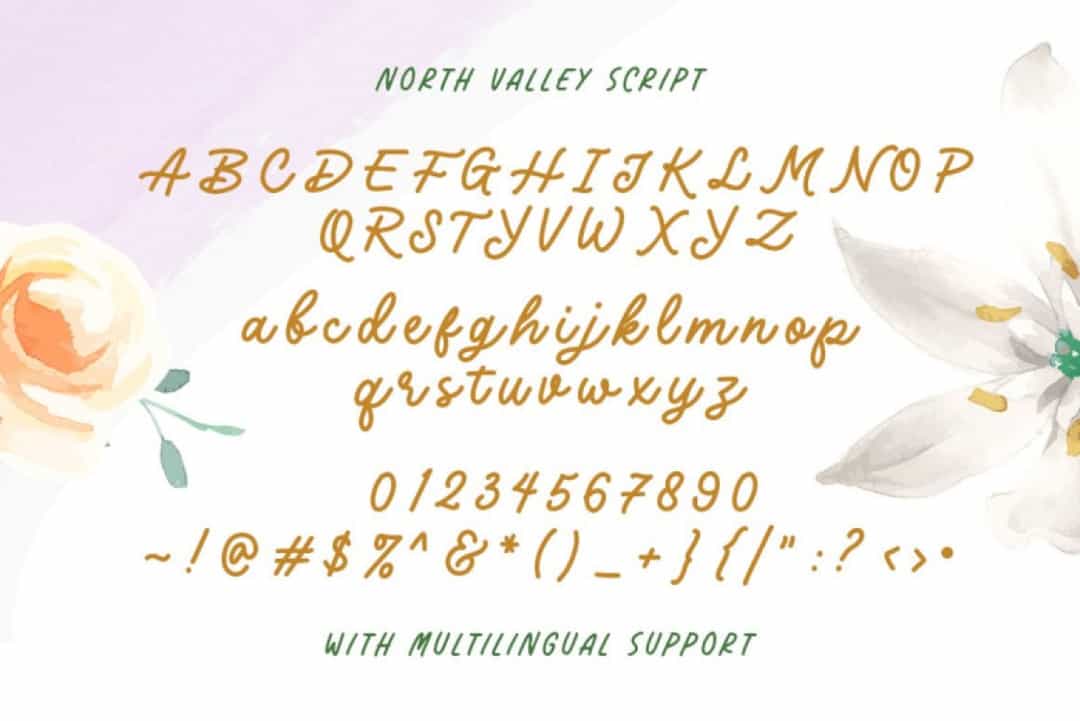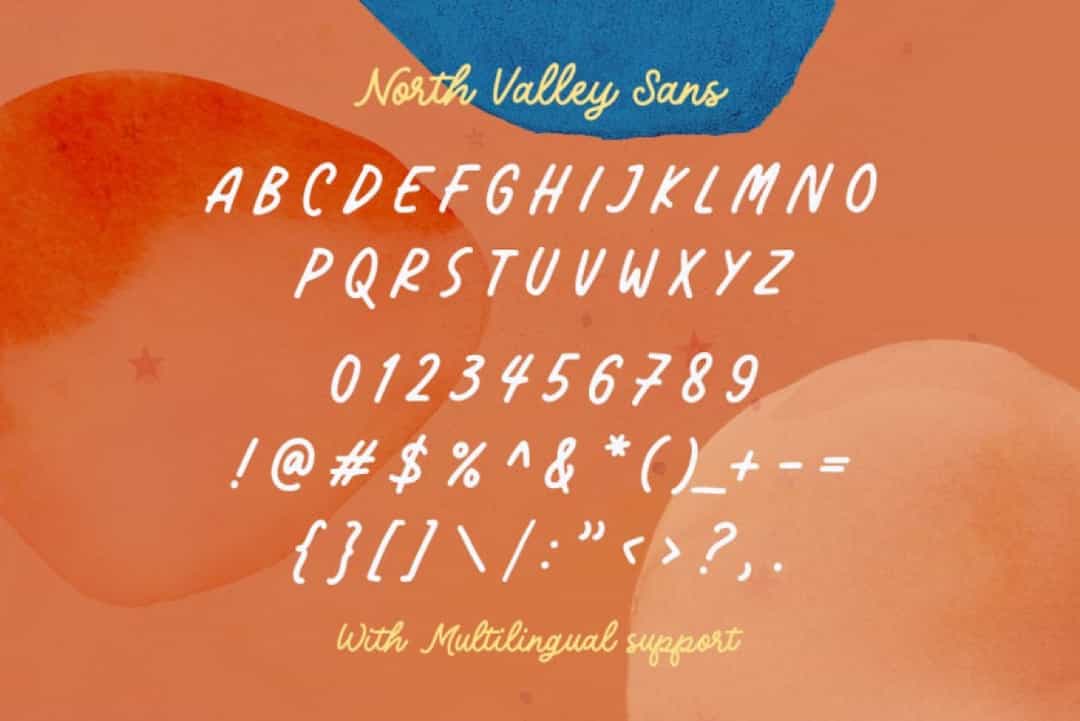
North Valley Font
Discover North Valley Font, part of the   Sans Serif  Handwritten  Old Style collection—a versatile and unique font perfect for adding a personal touch to your projects. Download it for free and enjoy crafting designs with style, from invitations to social media posts. This font is available exclusively for personal use, giving you the freedom to create without limits. Unlock your creativity with North Valley Font today!
North Valley – an adorable display font duo – comes in two styles, both sans script and serif, for ease of use in casual yet playful designs. Both fonts can be found perfect for use with logos as well as formal ones like invitation labels, labels for invitations and magazines; as well as greeting cards wedding cards packaging fashion makeup stationery novels labels or any other form of advertising materials.